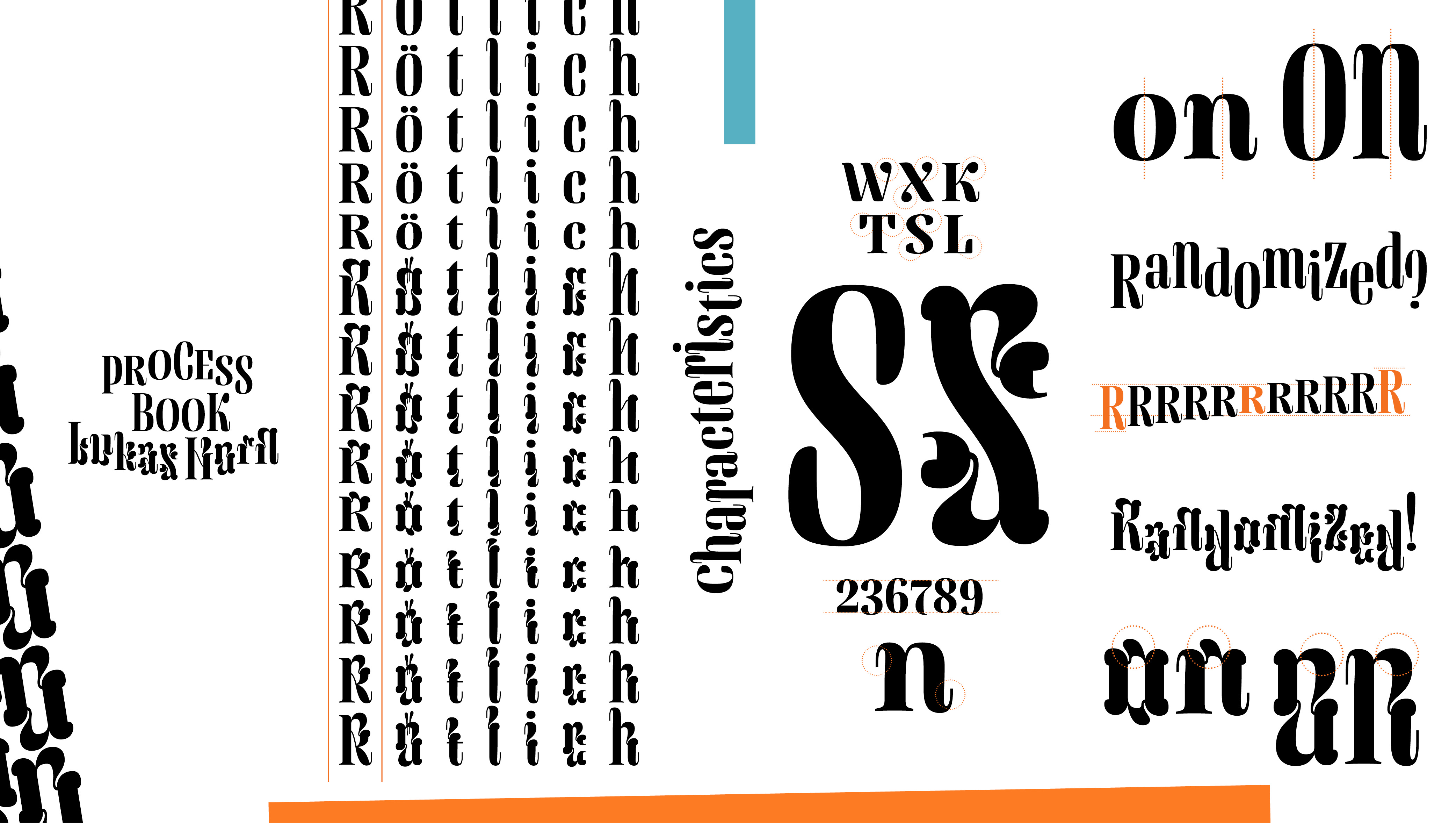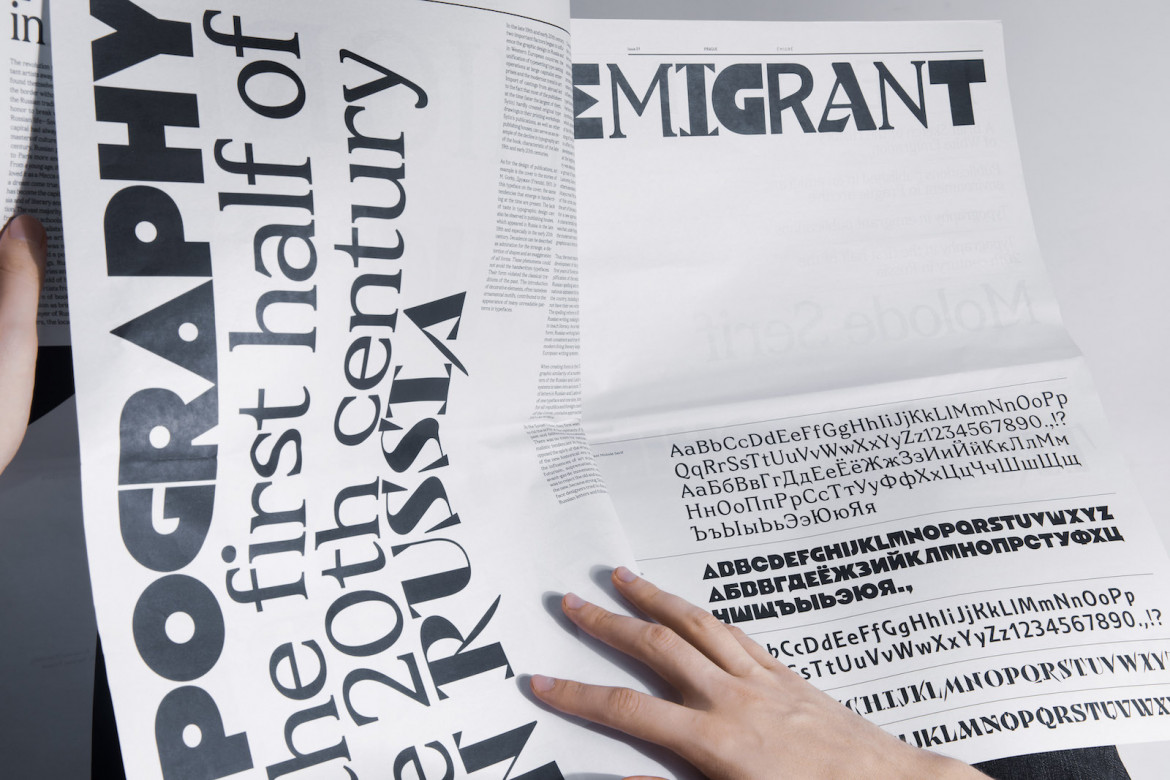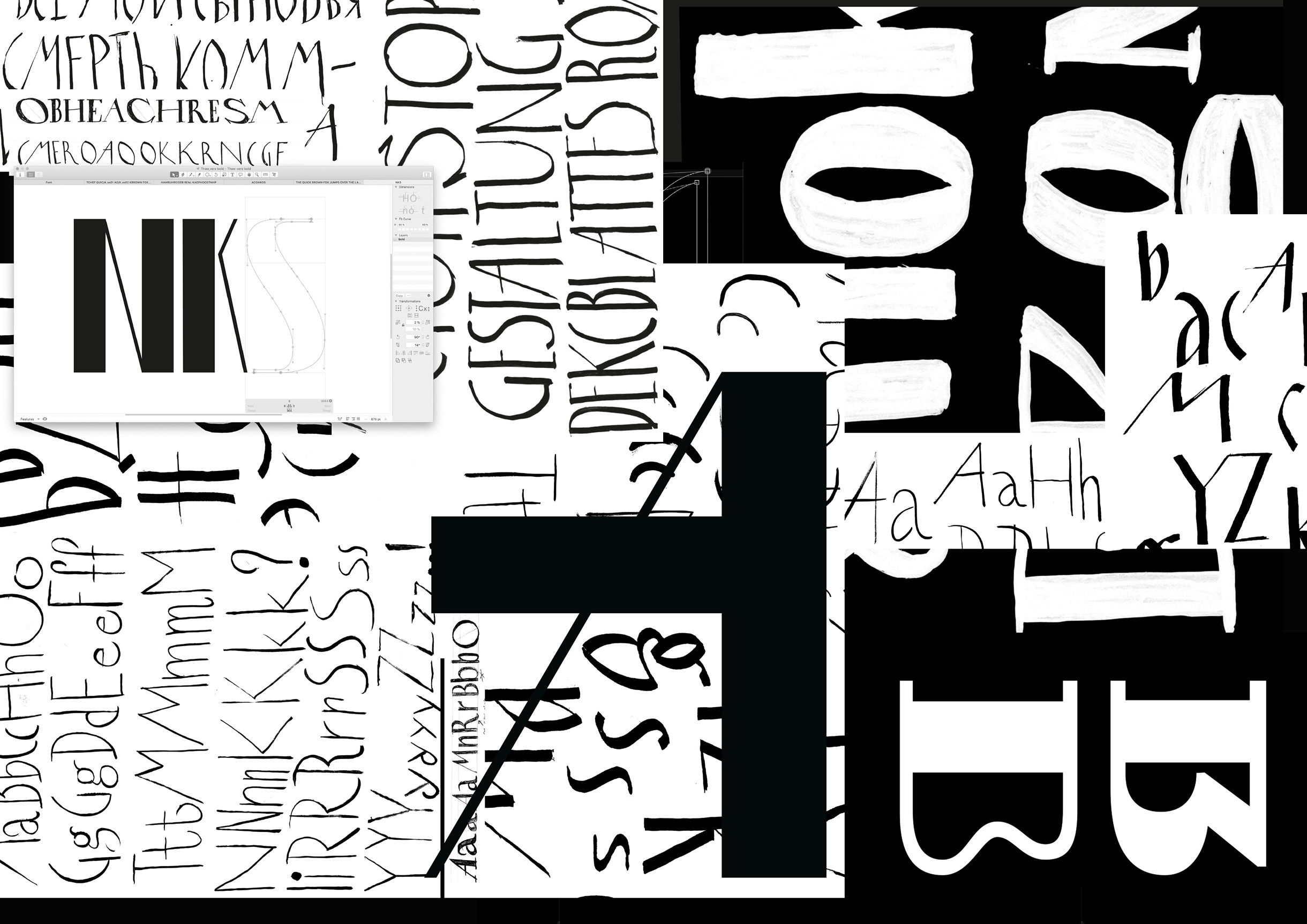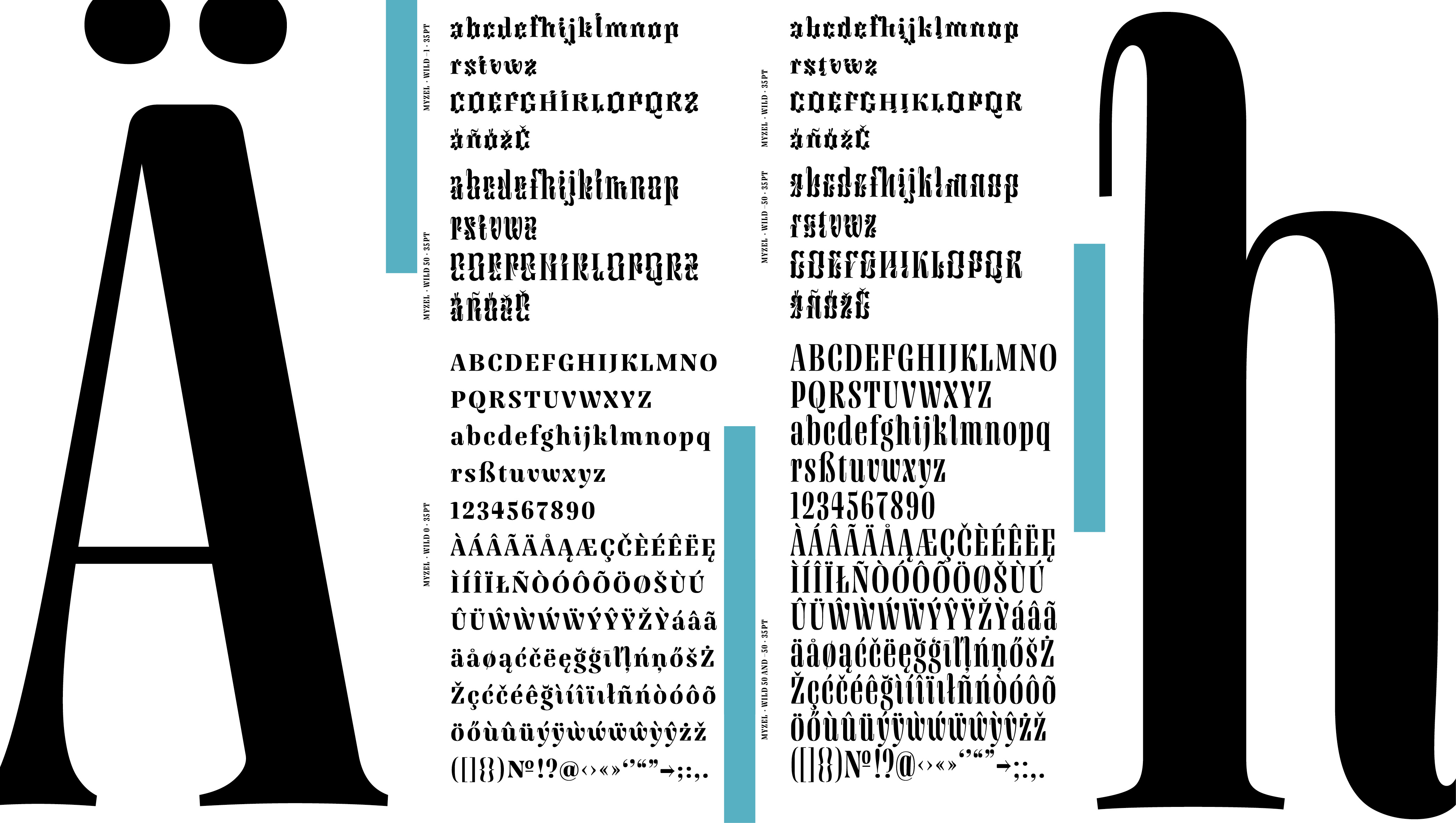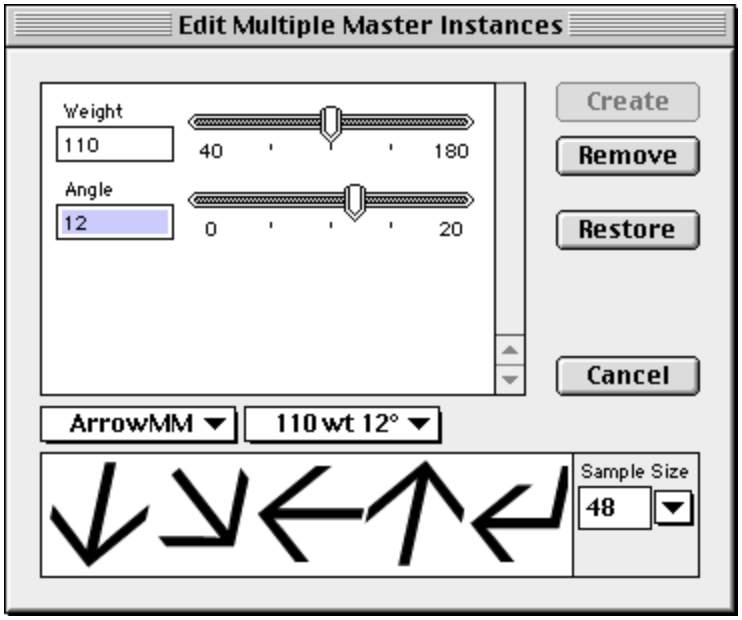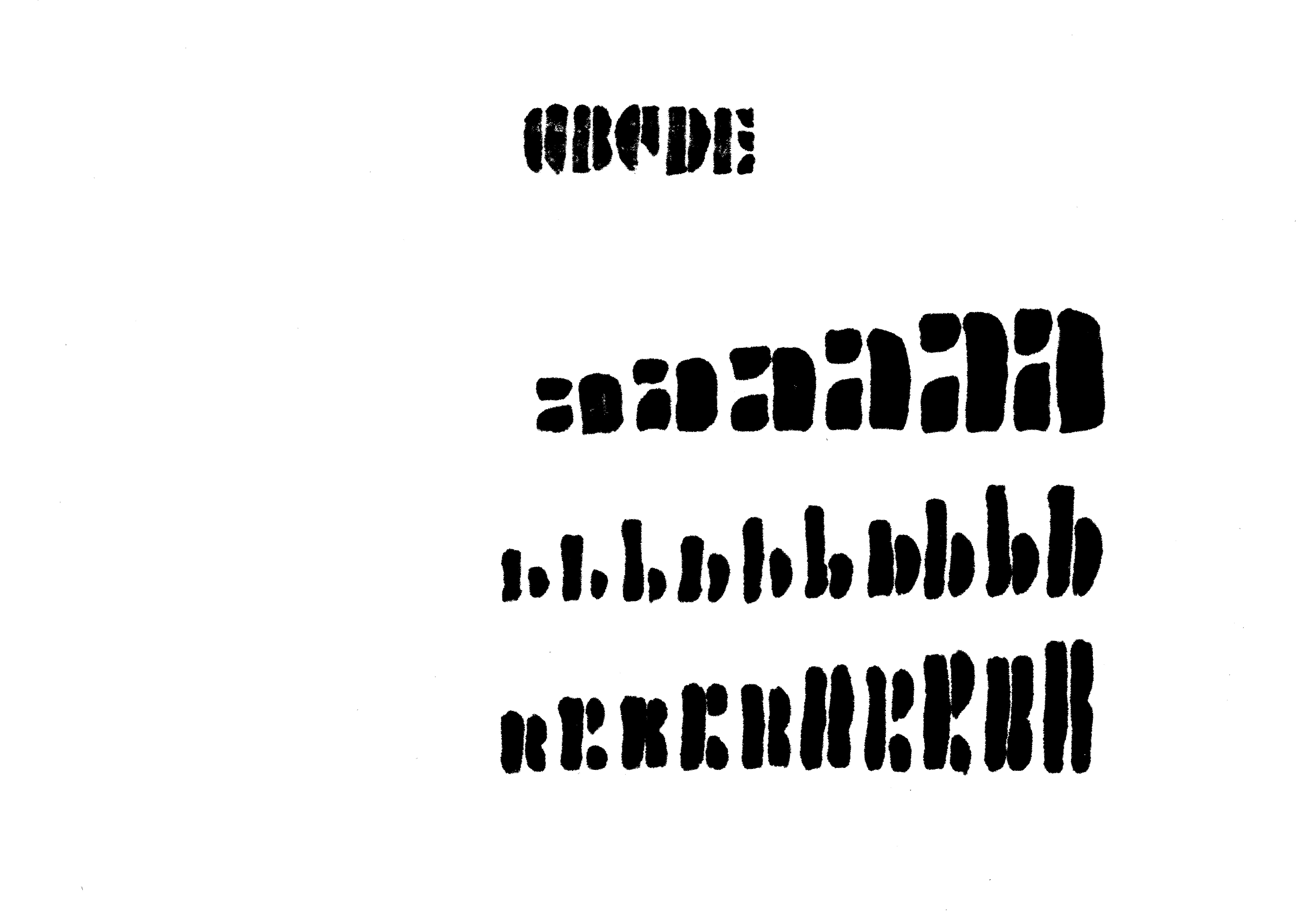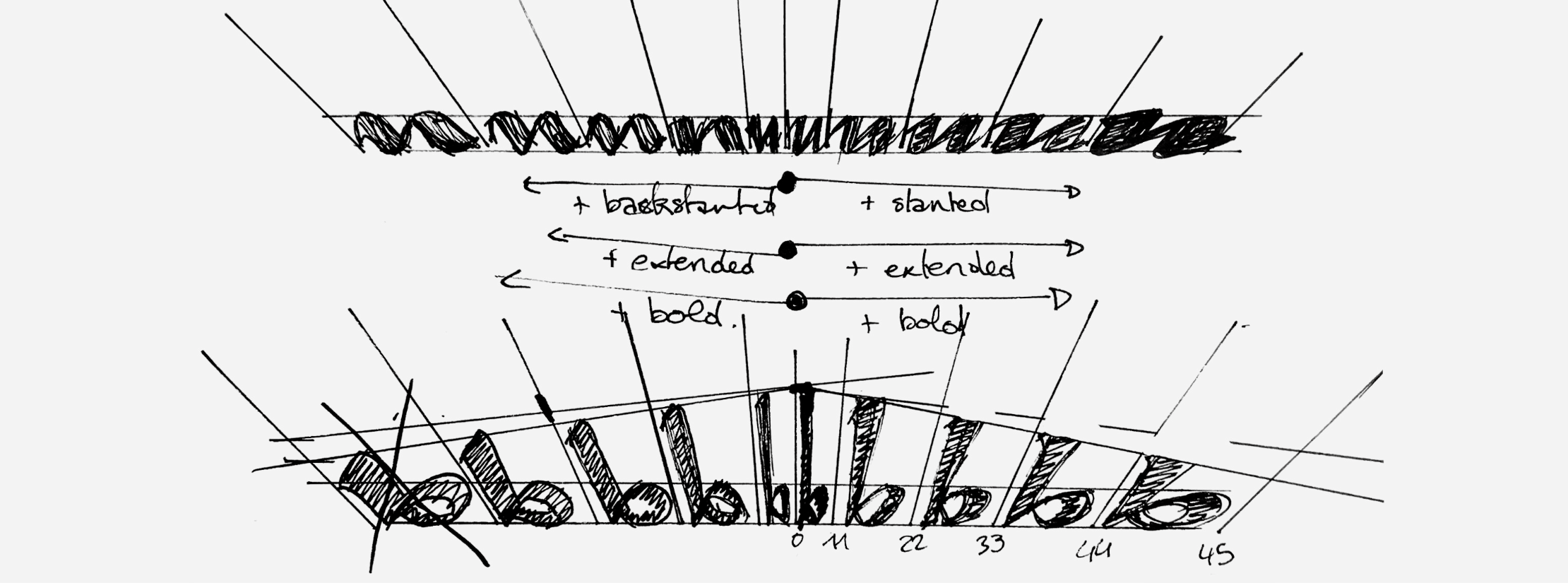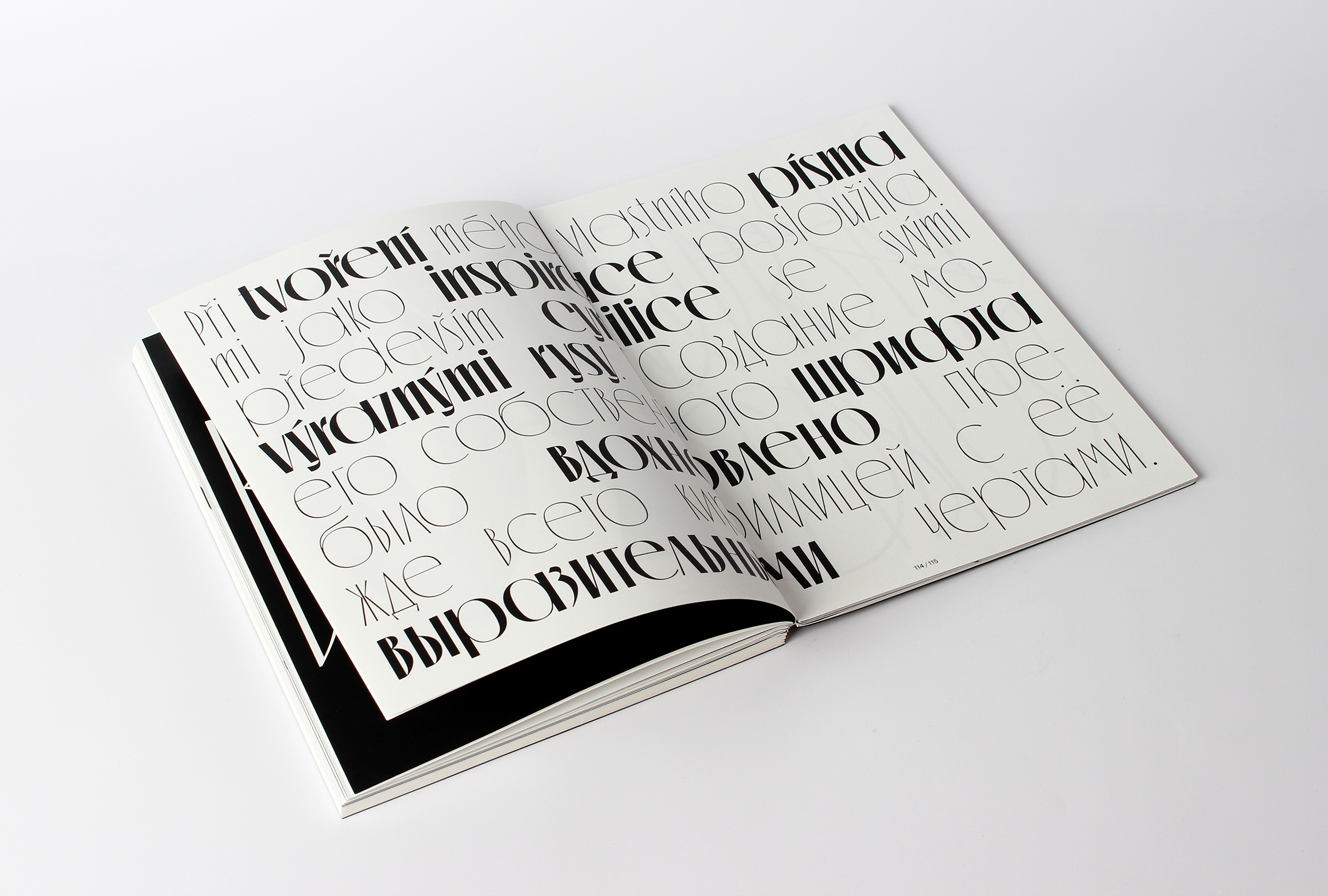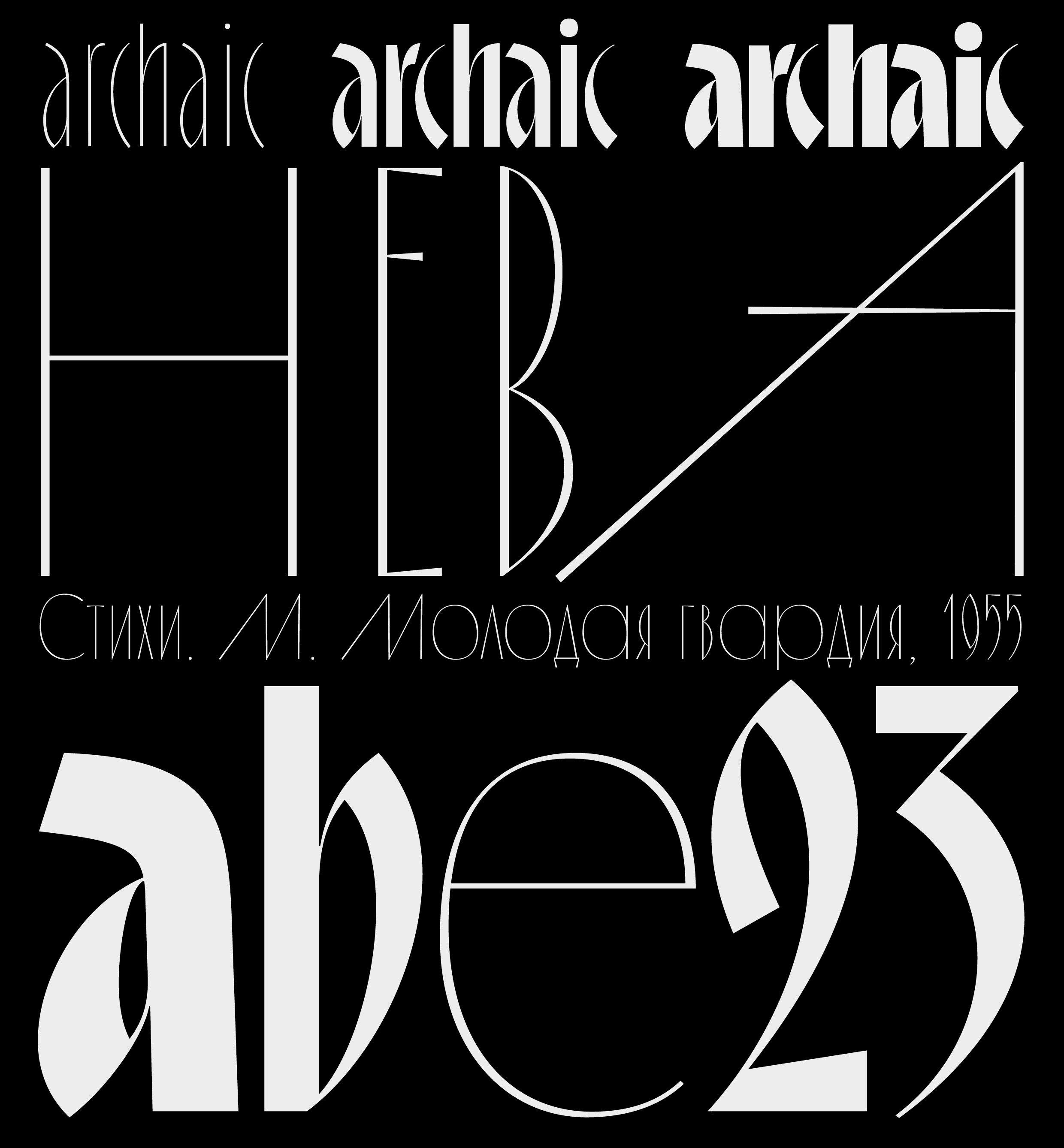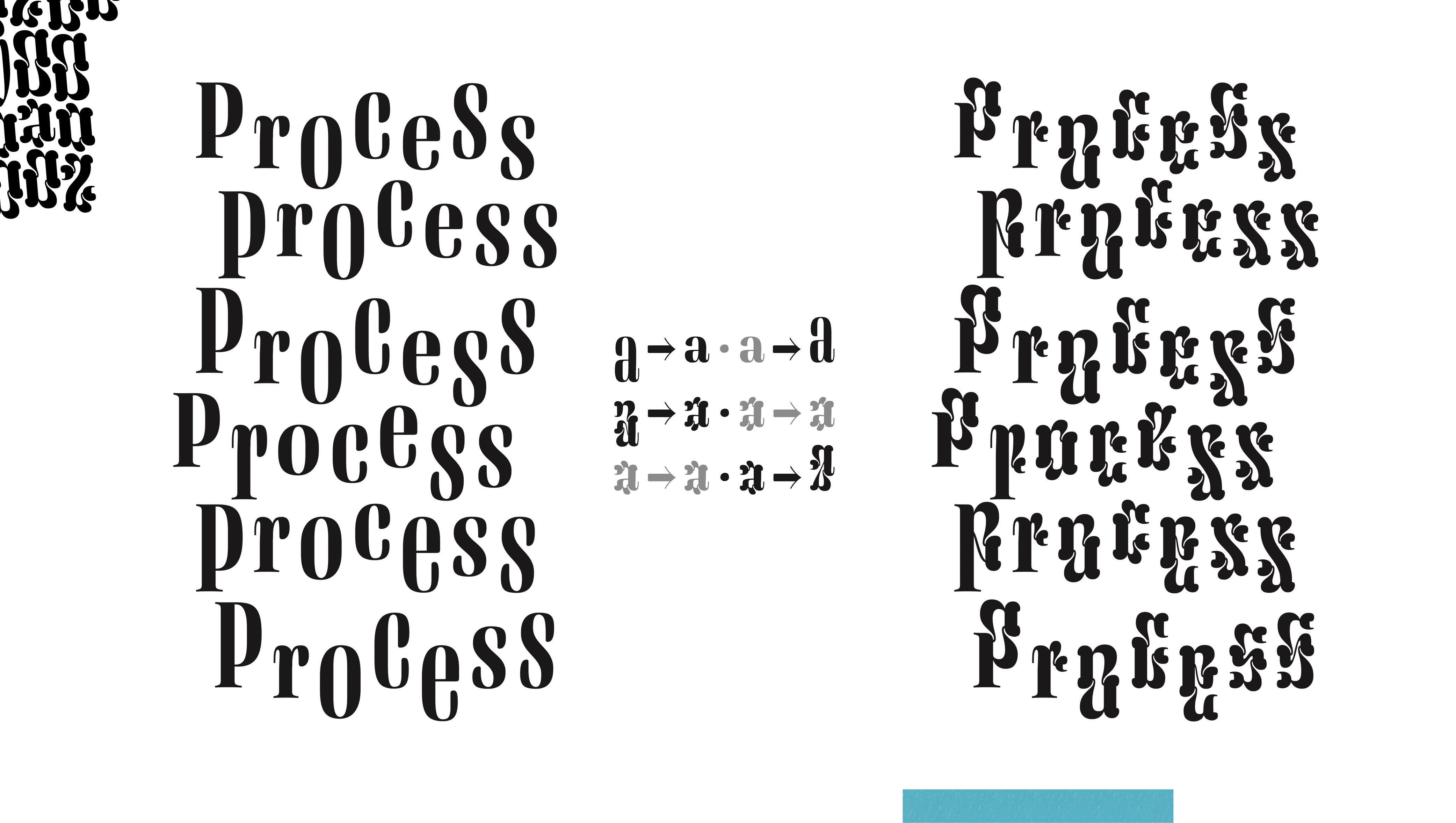
Hype or
Future of Type?
Are variable fonts the future of typography
or a temporary trend from the 2010s?
Variables fonts have been around for a while. In fact, in 1930, Josef Albers designed the Kombinationsschrift based on 3 basic shapes (circle, quarter circle and square) developed from experiments created with templates he made in 1928. ↘ 1 Kombinationssschrift: Article: www.bauhauskooperation.de/wissen/das-bauhaus/werke/druck-und-reklame/kombinationsschrift/. The typeface could be adapted on its width, height or weight and was especially developed for posters and displays. ↘ 2 Albers, Josef (1931): kombinationsschrift „3“, in: bauhaus zeitschrift für gestaltung nr. 1 januar 1931, Dessau.
Sketch of “Kombinationsschrift” designed by Josef Albers
Six decades later, with the evolution of typography and softwares, type designer Luc(as) de Groot created his first Multiple Master Font (currently known as variable fonts, short for OpenType Font Variations). ArrowFont 2.0 was first commercialized in 1992 for a signage company in London. ↘ 3 ArrowFont 2.0 by Luc(as) de Groot: Font: www.lucasfonts.com/learn/arrow-font. By setting its weight and angle, the end user could create up to 18 different arrows of their own.
Editor for the Multiple Master Font “ArrowFont 2.0” designed by Luc(as) de Groot
The major technology revolution arrived in 2016 with the release of version 1.8 of OpenType with its “OpenType Font Variations”, better known as variable fonts amongst many designers. Custom style creation was possible from a single font file, meaning that users could easily choose any typeface weight between two extremes within one font file. ↘ 4 On the road to variable. The flexible future of typography: Book: victionary.com/products/on-the-road-to-variable?variant=35147470700706 In other words, the advancement in OpenType fonts brought a multi-axis design space, within which many fonts can be interpolated with little to no effort. Saved in a single file, they can quickly be made responsive on websites across many different devices (computer, tablet, smartphone). The increased usage of mobile devices in the past 5 years has made it clear that adaptability is an appreciated feature in the digital world. If a font is not able to automatically adjust in size and aspect ratio of the device, it will not be considered an efficient font in terms of digital usage. With all this information in mind, we asked ourselves: how does the technological advancement in variable fonts translate into the design of our times?
New perspectives for today’s design projects
During the Mastering Type Exhibition, organized by the Typostammtisch (Berlin, 2022), brilliant typeface designers presented their latest work. What the next three typeface designers have in common is that they all created variable fonts, which serve different purposes and impact in different ways the current typography and design scene. ↘ 5 Nachbericht 94. Typostammtisch: Ausstellung und Präsentationen Mastering Type: Article: typostammtisch.berlin/2022/05/nachbericht-94-typostammtisch-ausstellung-und-praesentationen-mastering-type/.
Ilya Bazhanov created the typeface Emigrant (Prague, 2022) and as a result, brought back old fonts to life. As part of his research, he went through archives of newspapers and book covers and collected typefaces that were used at the time. Ilya scanned all different kinds of typefaces that were only used in printed matter back then.
Typeface “Emigrant” by Ilya Bazhanov
Through different combinations of the cuts, he achieved to create a “mix of shape, weights, structure and style”, referencing the diverse social backgrounds of Ukrainian, Belarusian, and Russian emigrants from the first half of the 20th century in Europe. ↘ 6 Nachbericht 94. Typostammtisch: Ausstellung und Präsentationen Mastering Type: Article: typostammtisch.berlin/2022/05/nachbericht-94-typostammtisch-ausstellung-und-praesentationen-mastering-type/. With one of his previous typefaces Thaw, his intention was similar. He aimed to bring back typefaces used in the 60s and give them a contemporary look. This revival made it possible to use the typeface on digital devices and with a broader range of options (change in proportions and dynamics of the text).
Typeface “Thaw” by Ilya Bazhanov
“Thaw” Thesis by Ilya Bazhano
Sketches for Typeface “Thaw”
Another interesting aspect of variable fonts was brought by Léna Le Pommelet and her typeface Furya (The Hague, 2021).
Typeface “Furya” by Léna Le Pommelet
Inspired by mechanical style car typography of the 50s to the 70s and their optical illusions, she created a typeface that translated speed into the 2D world. Her speedometer axis connects different axis (weight, width, contrast, and slant from -45° to 45°) and creates an eye-catching typeface, that wraps the viewer in totally new dimensions. ↘ 7 Nachbericht 94. Typostammtisch: Ausstellung und Präsentationen Mastering Type: Article: typostammtisch.berlin/2022/05/nachbericht-94-typostammtisch-ausstellung-und-praesentationen-mastering-type/.
Sketch of the research for a variable axis
Furya brings a deeper sense of motion and dynamic to the screen in a time where not only opening titles and television advertisements are making use of movement.
Around the topic of adaptability and responsiveness, Lukas Horn showcases the use of his variable font Myzel (The Hague, 2021) on both, mobile devices and desktops.
Typeface “Myzel” by Lukas Horn
Myzel is the best example of a typeface that works both in its static form, with its ornaments turned into beautiful and aesthetic patterns and its dynamic form. Thanks to advancements in programming languages, such as Javascript and CSS, Lukas was able to give a playful touch to his typeface by considering the different interactions a user can have with the typeface, when used on specific browser versions of a desktop. In a way, this proves the current limits of the technology and the work that is still ahead of designers and programmers.
We are curious to see what kind of results will be achieved with the future development of variable fonts when used for purposes that go beyond design, and what new dimensions the technology will bring to the design landscape of the future.